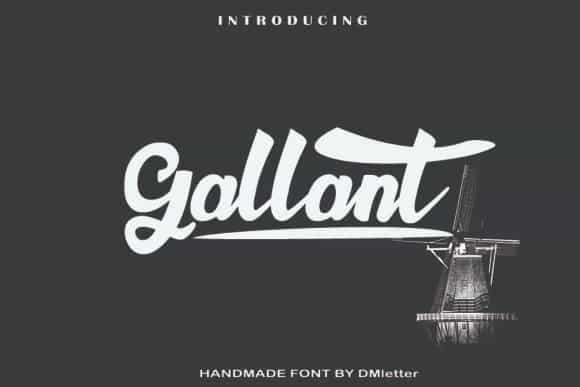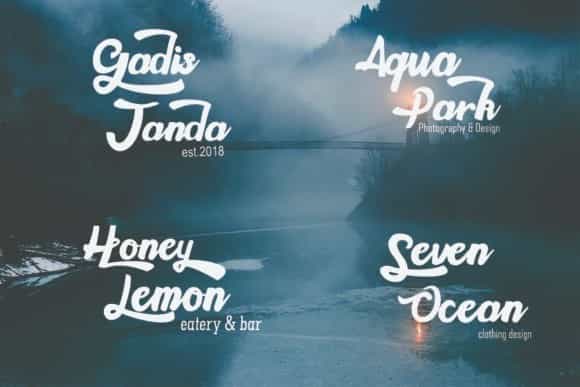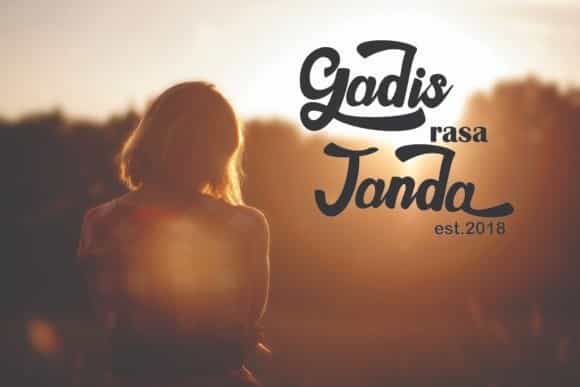
Gallant is a gorgeous modern font. It has curvy lines and characters that are well blended. The font has a modern calligraphy style and its swashes are very beautiful. It is a piece of cake to understand and interesting to use. You will surely get the professional results with this font and your customers will be amazed.